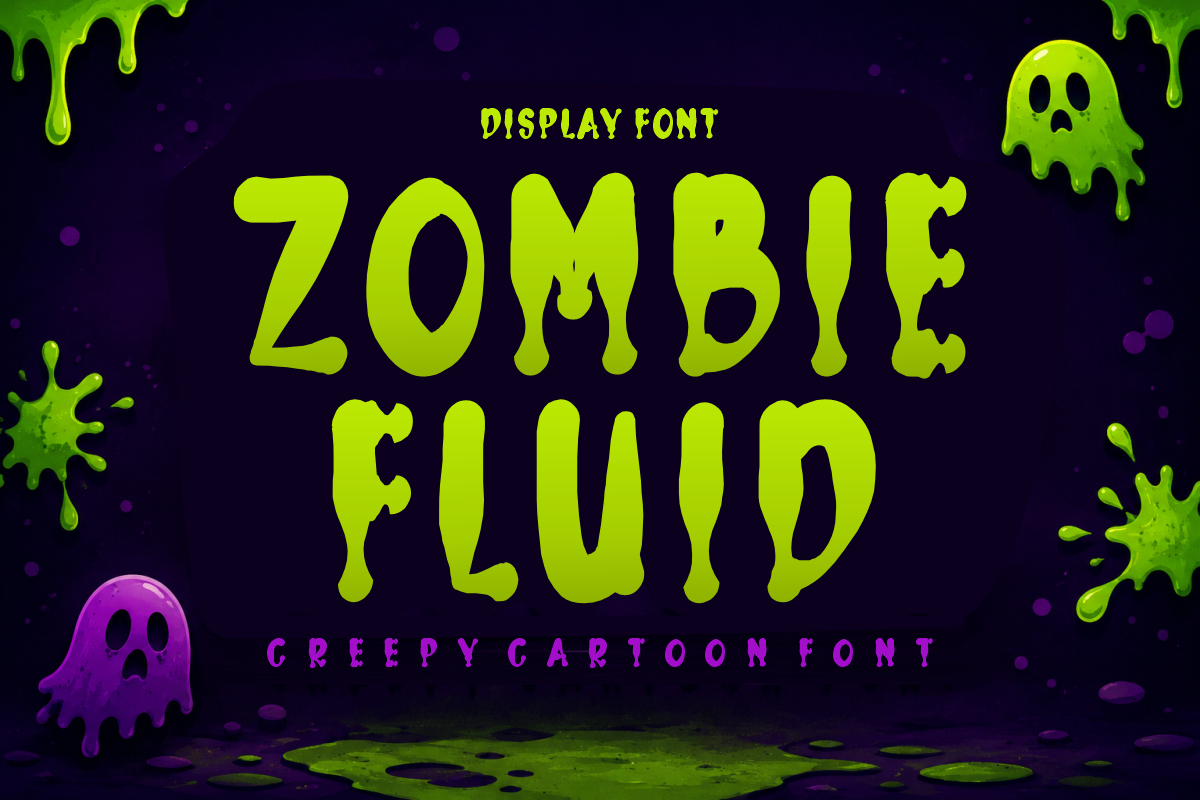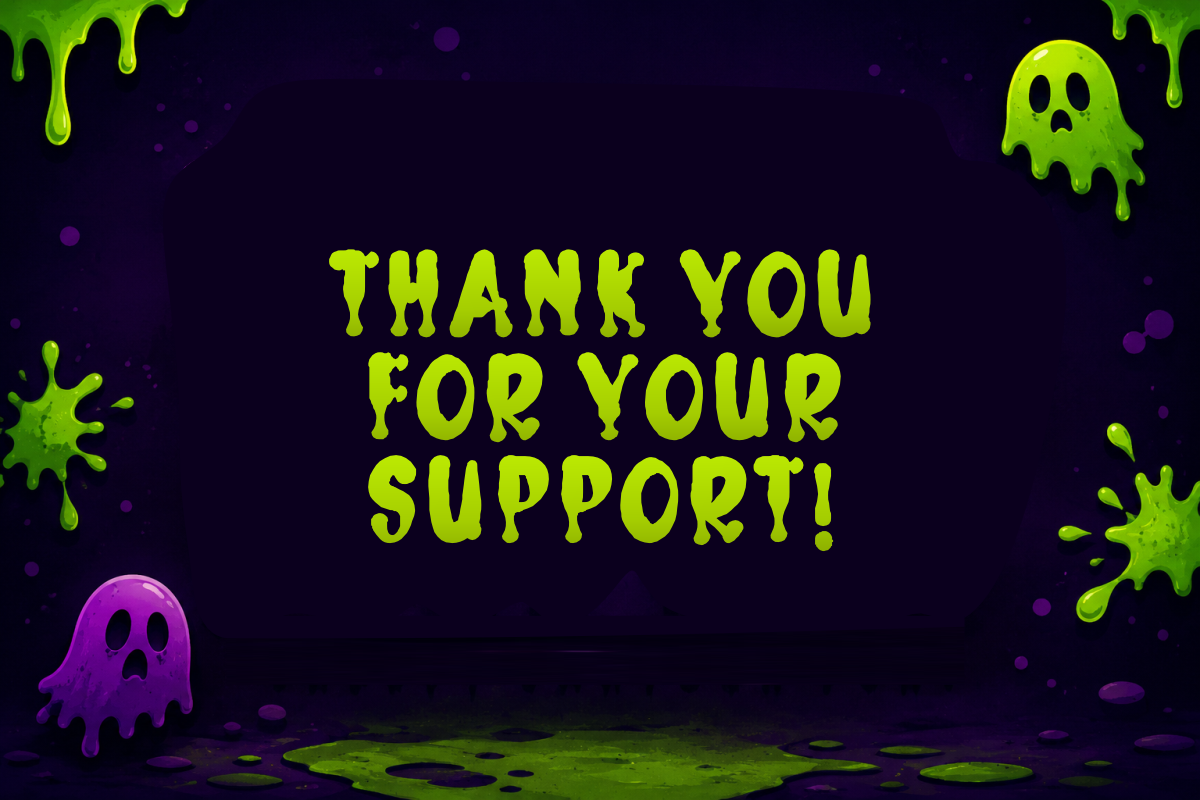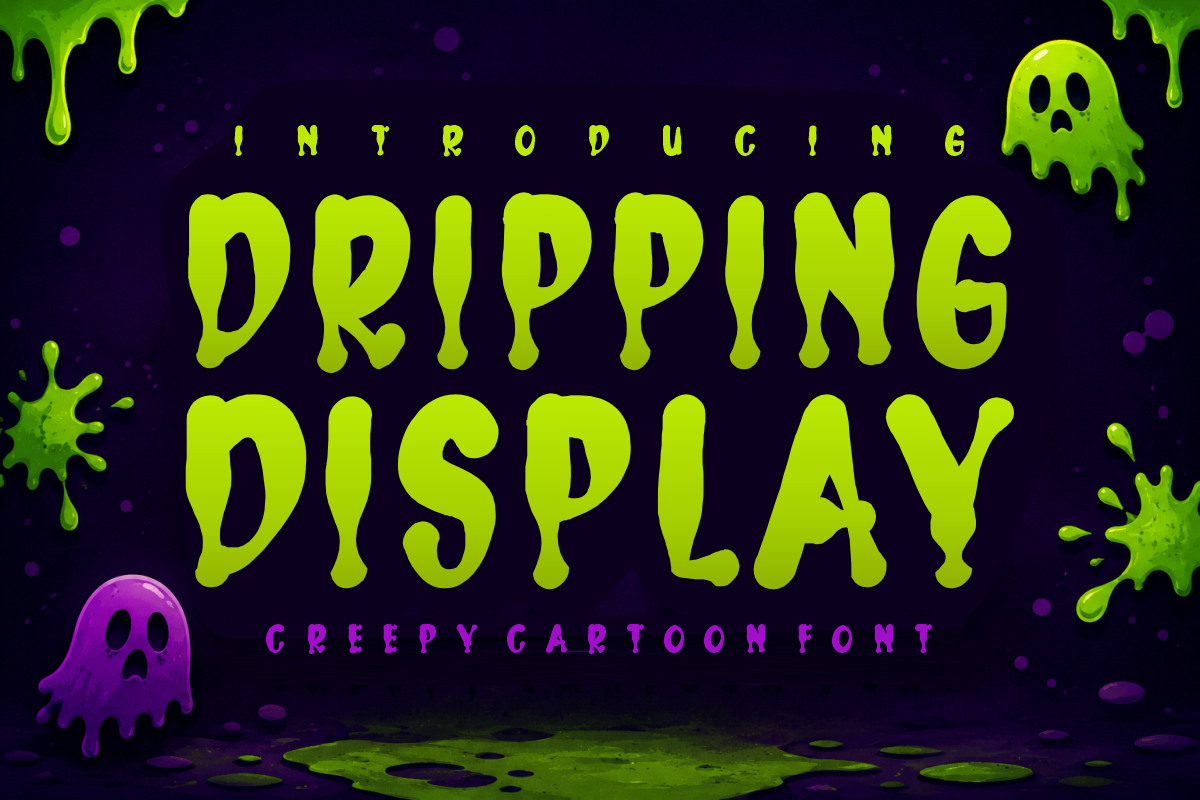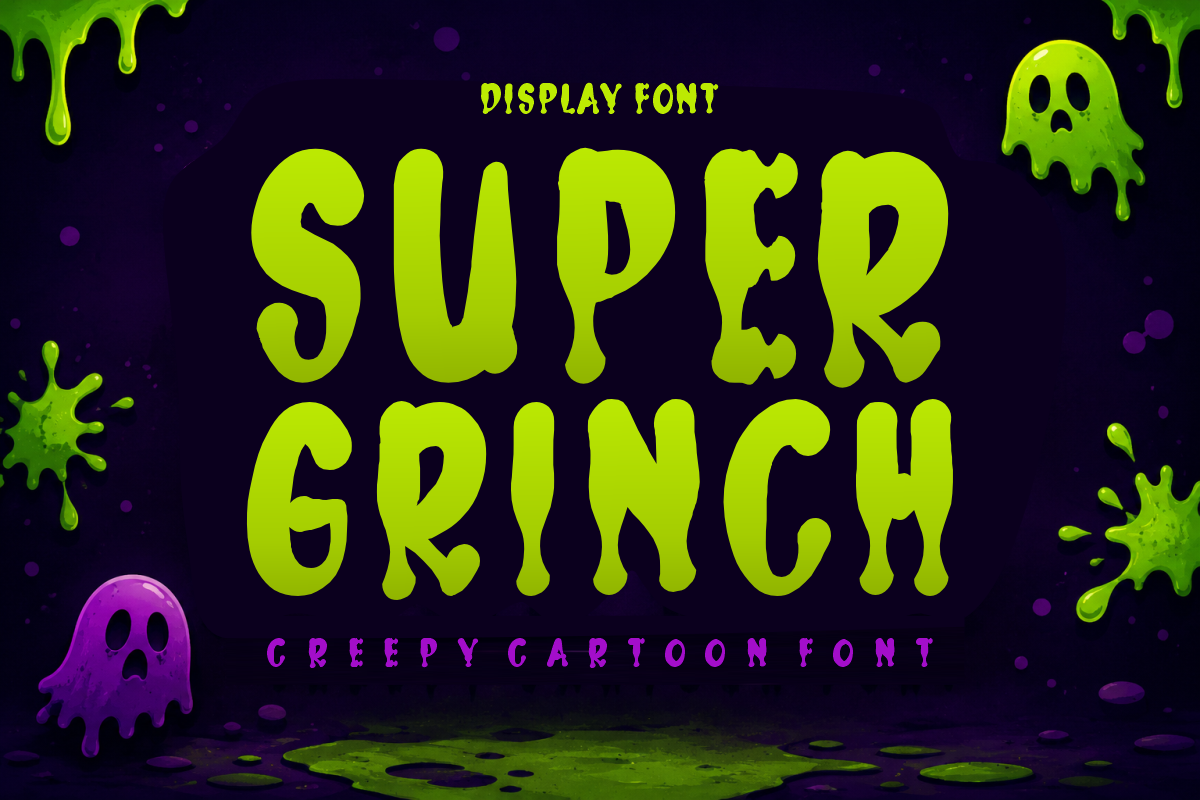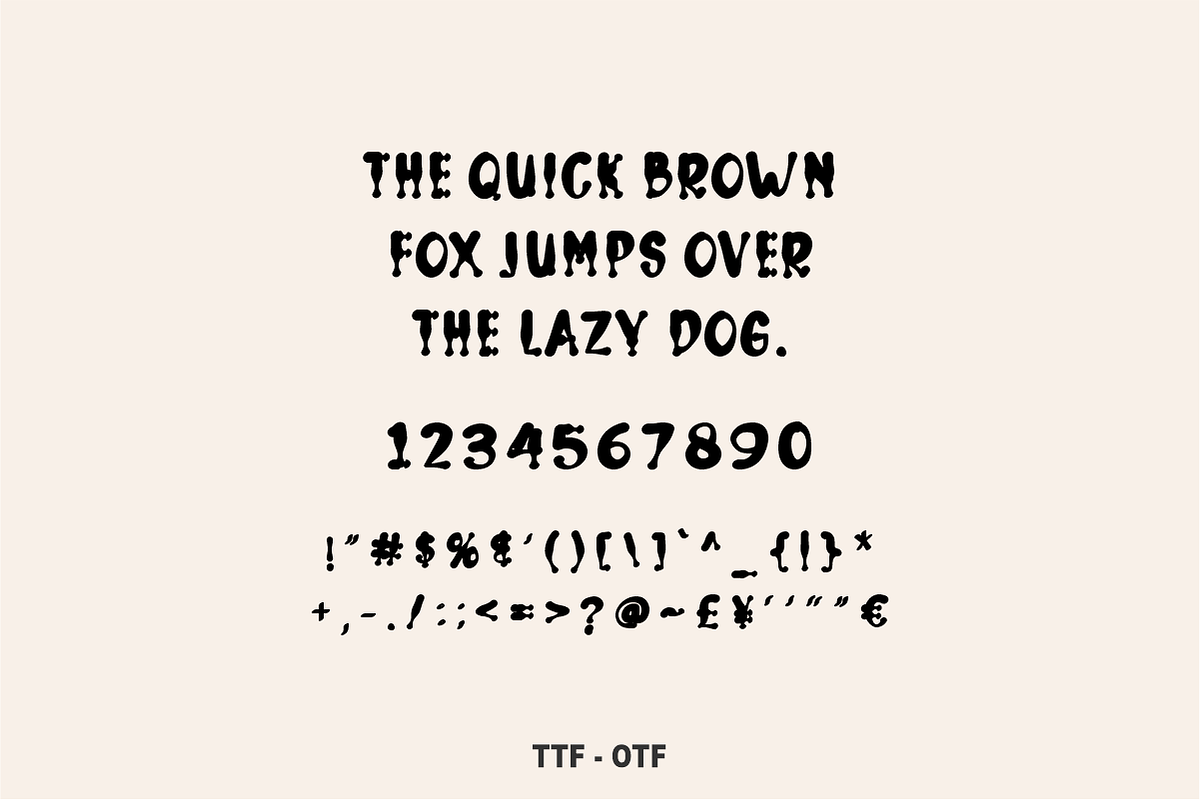
Dripping Display - Creepy Slime Font
Dripping Display is a fun, eerie cartoon font featuring melting, slime-dripping letterforms with a playful monster aesthetic. Packed with spooky Halloween energy and gooey cartoon charm, this dripping display font adds a bold, creepy-cute pop to your party graphics, trick-or-treat merch, and seasonal craft projects. Every character is cleanly vectorized to guarantee high-resolution prints and smooth, effortless cutting on Cricut and Silhouette machines.